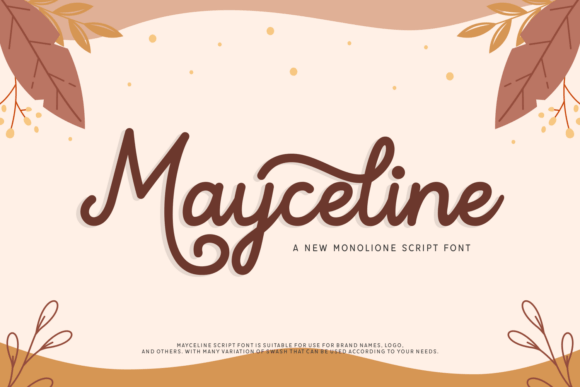
Mayceline Font: Elevate Your Designs with Elegance and Sophistication
In the world of typography, fonts play a crucial role in conveying the tone and personality of a brand or design. Among the numerous fonts available, Mayceline stands out as a stylish monoline script font that has captured the attention of designers and typography enthusiasts alike. With its smooth, flowing lines and connected letters, Mayceline exudes an elegant and sophisticated feel that’s perfect for a wide range of design applications.
What is Mayceline Font?
Mayceline is a modern script font characterized by its monoline construction, smooth curves, and flowing lines. The font’s letters are carefully crafted to be connected, creating a seamless and harmonious look that’s both elegant and easy to read. Mayceline’s unique design makes it an excellent choice for designers seeking to add a touch of sophistication and personality to their work.
Key Features of Mayceline Font
- Smooth, flowing lines: Mayceline’s monoline construction ensures that its lines are smooth and continuous, creating a fluid and natural look.
- Connected letters: The font’s letters are carefully connected to create a seamless and harmonious look that’s perfect for designs that require a personal touch.
- Elegant and sophisticated: Mayceline’s design exudes elegance and sophistication, making it perfect for high-end designs, logos, and branding materials.
- Easy to read: Despite its elegant design, Mayceline is easy to read, making it suitable for body text and other applications where legibility is crucial.
Use Cases for Mayceline Font
Mayceline’s versatility and elegance make it suitable for a wide range of design applications, including:
- Logos and branding: Mayceline’s unique design makes it perfect for logos, business cards, and other branding materials that require a touch of sophistication.
- Invitations and events: The font’s elegant design makes it suitable for invitations, wedding stationery, and other event-related materials.
- Social media and digital content: Mayceline’s modern design makes it perfect for social media graphics, blog posts, and other digital content that requires a personal touch.
- Packaging and product design: The font’s elegant design makes it suitable for packaging and product design, particularly for luxury brands and high-end products.
Benefits of Using Mayceline Font
Mayceline offers several benefits to designers and brands, including:
- Unique and distinctive: Mayceline’s design is unique and distinctive, allowing brands to stand out from the competition.
- Elegant and sophisticated: The font’s elegant design adds a touch of sophistication to any design, making it perfect for high-end brands and luxury products.
- Versatile: Mayceline is versatile and can be used for a wide range of design applications, from logos and branding to social media and digital content.
- Easy to read: The font’s design ensures that it’s easy to read, making it suitable for body text and other applications where legibility is crucial.
Mayceline Font vs. Other Script Fonts
Mayceline is often compared to other script fonts, but its unique design and features set it apart. Here’s a comparison with other popular script fonts:
- Mayceline vs. Pacifico: While Pacifico is a beautiful script font, Mayceline’s monoline construction and connected letters give it a more elegant and sophisticated feel.
- Mayceline vs. Great Vibes: Great Vibes is a stylish script font, but Mayceline’s smooth, flowing lines and elegant design make it more suitable for high-end designs and luxury brands.
- Mayceline vs. Carolyna Pro: Carolyna Pro is a versatile script font, but Mayceline’s unique design and features make it more perfect for designs that require a personal touch.
Tips and Tricks for Using Mayceline Font
To get the most out of Mayceline, here are some tips and tricks to keep in mind:
- Use it sparingly: Mayceline’s elegant design can be overwhelming if used excessively. Use it sparingly to add a touch of sophistication to your design.
- Pair it with contrasting fonts: Pair Mayceline with contrasting fonts to create visual interest and add depth to your design.
- Adjust the font size: Adjust the font size to ensure that Mayceline is legible and easy to read.
- Experiment with colors: Experiment with different colors to find the perfect match for your design and brand.
In conclusion, Mayceline is a stylish monoline script font that offers elegance, sophistication, and versatility. Its smooth, flowing lines and connected letters make it perfect for a wide range of design applications, from logos and branding to social media and digital content. With its unique design and features, Mayceline is sure to elevate your designs and add a touch of personality to your work.